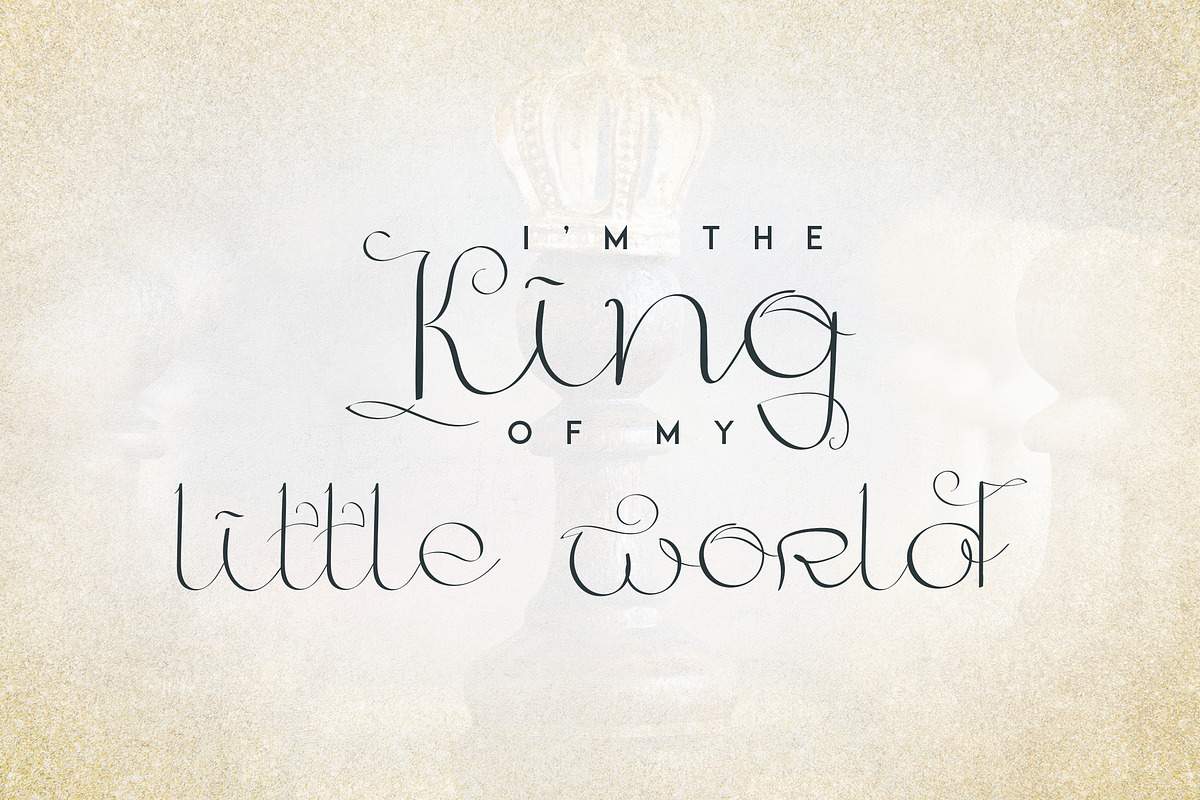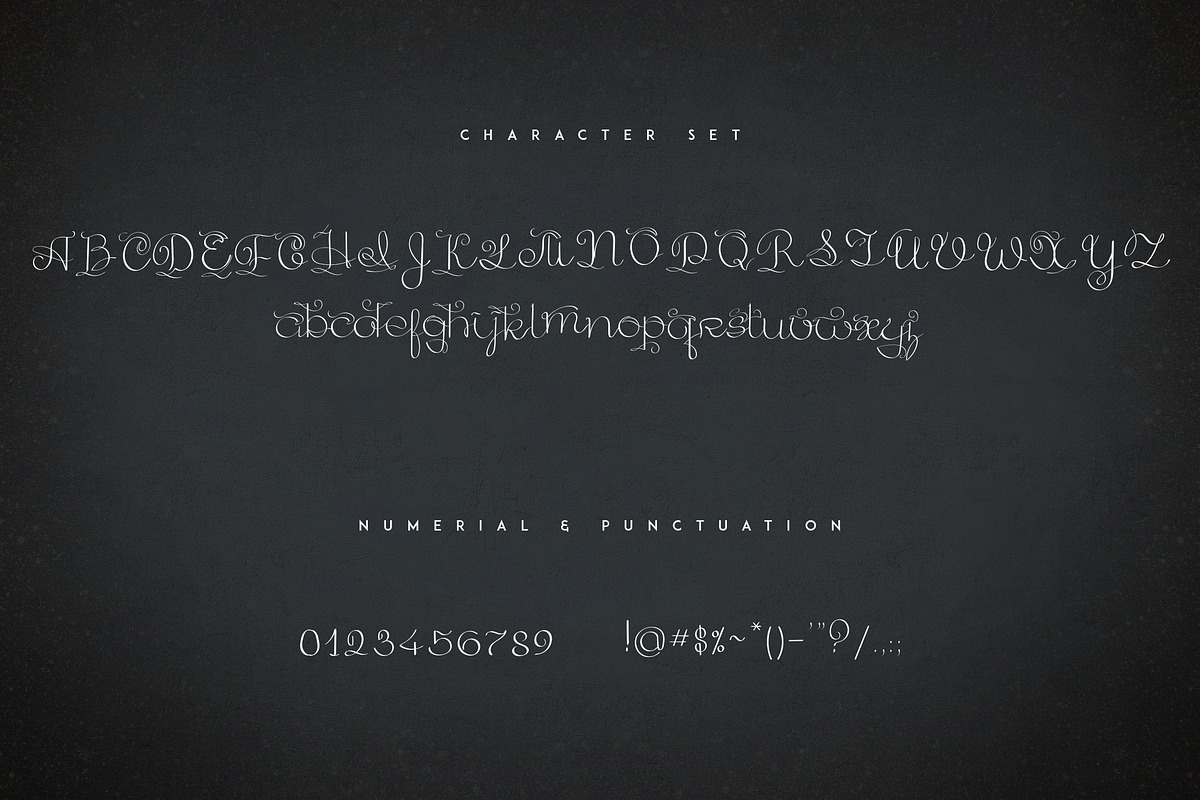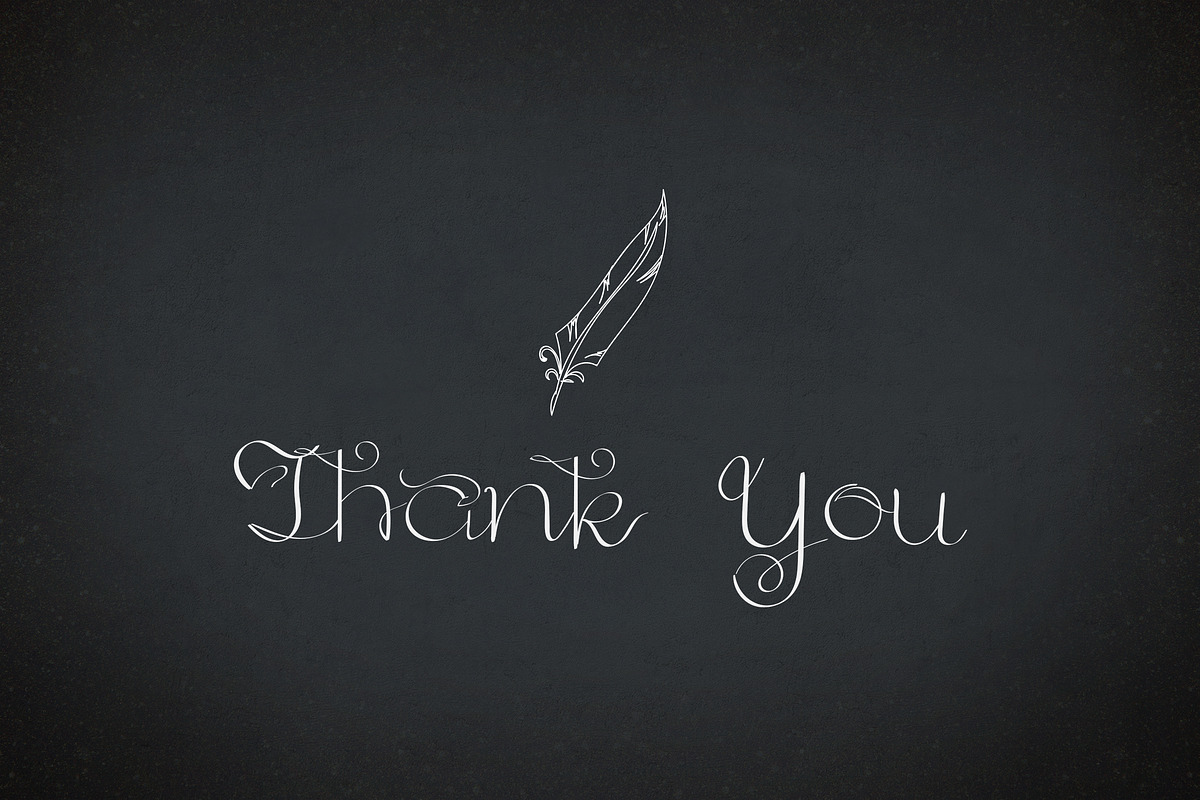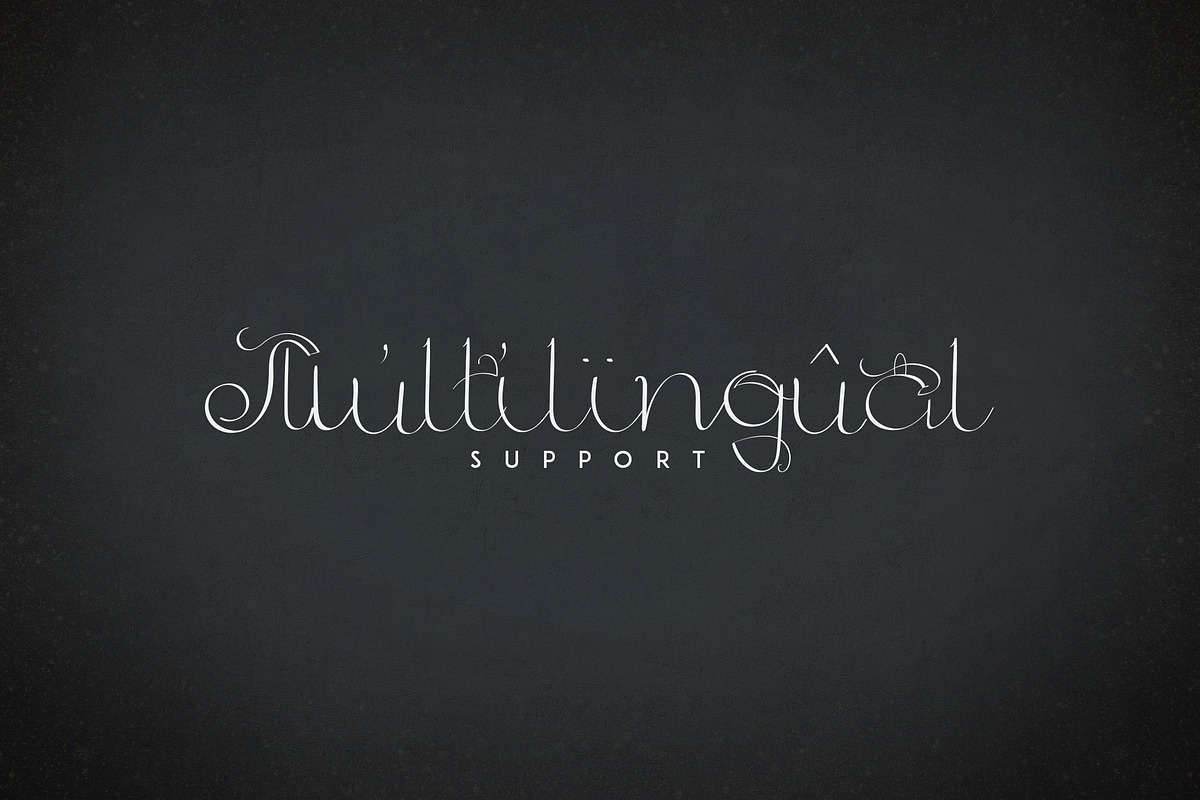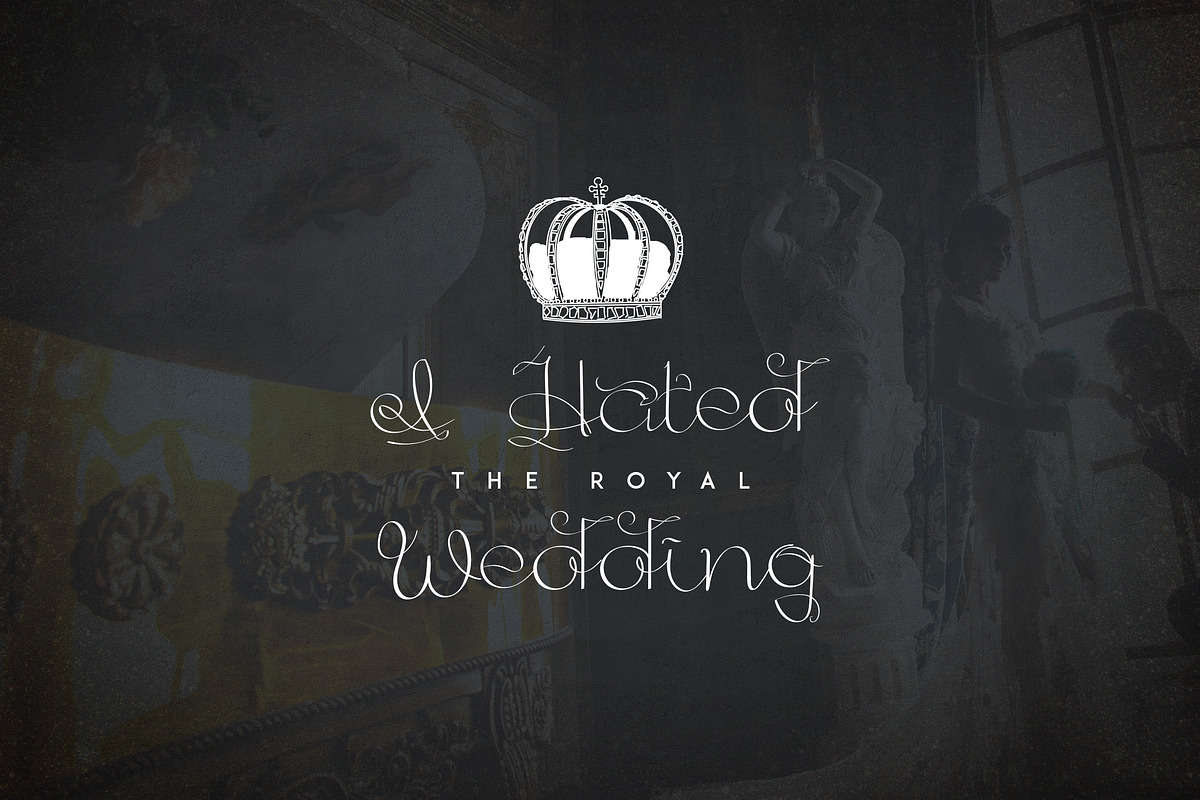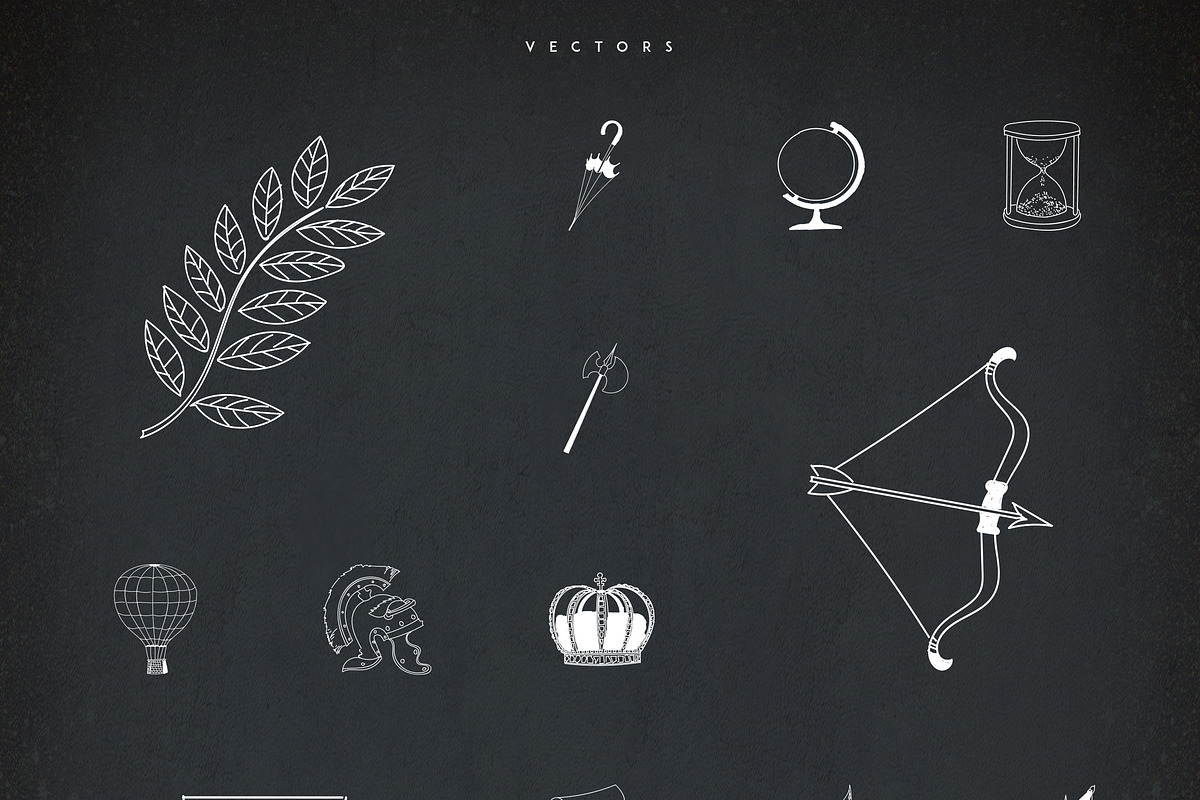
Golden Age script and Vectors
Introducing: Golden Age script ! A handwritten font with a personal charm. With dry clean lines, Golden Age is perfect for branding projects, home-ware designs, product packaging - or simply as a stylish text overlay to any background image.